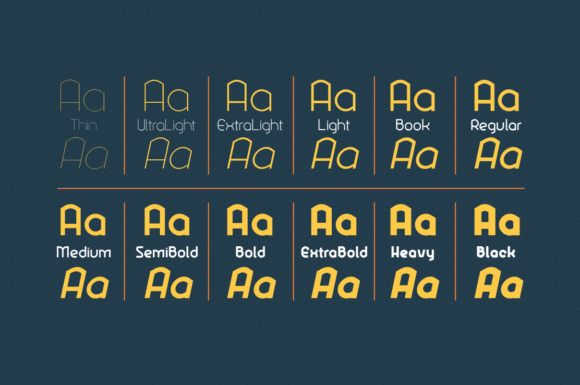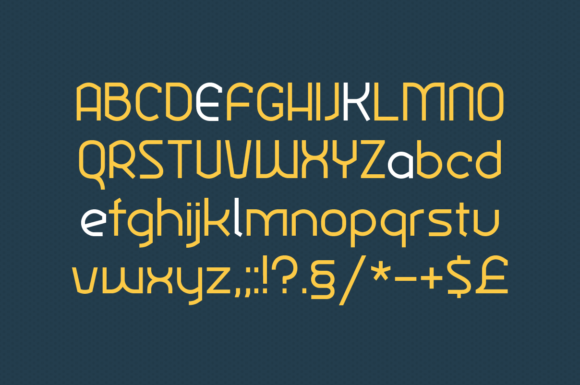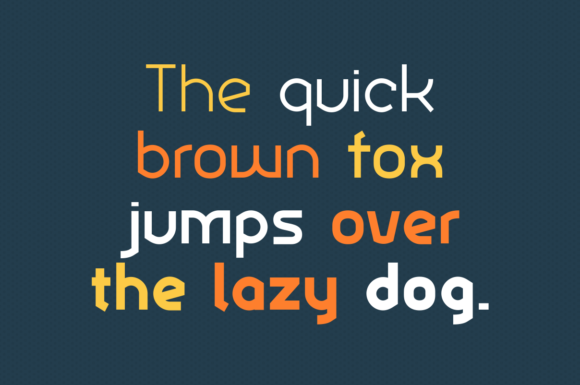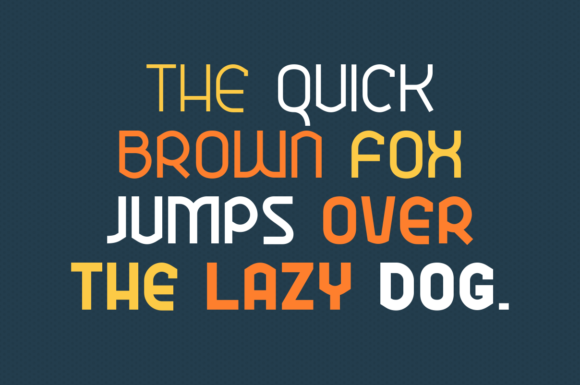
Introducing Ekela Font: The Ultimate Sans Serif for Modern Designs
Are you a designer or crafter on the hunt for the perfect font to elevate your creative projects? Look no further than Ekela Font, a simple yet stunning sans serif font that’s about to become your new favorite. With its neat and clean style, Ekela is an incredibly versatile font that can be used in a wide variety of designs, from digital media to print materials.
The Simplicity and Elegance of Ekela Font
Ekela Font boasts a minimalist design that’s both elegant and easy to read. Its sans serif style gives it a modern and sleek look that’s perfect for designers who want to create clean and sophisticated designs. The font’s simplicity also makes it highly legible, even at smaller sizes, which is ideal for body text or captions.
Why Ekela Font Stands Out
So, what sets Ekela Font apart from other fonts in its category? Here are just a few reasons why Ekela is a cut above the rest:
- Neat and Clean Style: Ekela’s design is characterized by its neat and clean lines, making it perfect for designs that require a professional look and feel.
- Highly Legible: Ekela’s simple design ensures that it’s easy to read, even at smaller sizes.
- Versatile: Ekela can be used in a wide range of designs, from digital media to print materials, and is suitable for both headings and body text.
- Easy to Pair: Ekela’s neutral design makes it easy to pair with other fonts, allowing you to create stunning font combinations.
Ekela Font is an excellent choice for designers and crafters who want to add a touch of modern elegance to their projects. Whether you’re working on a:
- Branding Project: Ekela’s clean design makes it perfect for logos, business cards, and letterheads.
- Digital Product: Ekela’s legibility and simplicity make it ideal for user interfaces, mobile apps, and website designs.
- Print Material: Ekela’s neat style makes it suitable for brochures, flyers, posters, and more.
- Crafting Project: Ekela’s elegant design makes it perfect for crafting projects, such as DIY tutorials, patterns, and inspirational quotes.
How to Use Ekela Font Effectively
To get the most out of Ekela Font, here are some tips on how to use it effectively:
- Use it as a Headline Font: Ekela’s bold and clean design makes it perfect for headlines and titles.
- Pair it with Other Fonts: Ekela’s neutral design makes it easy to pair with other fonts, allowing you to create stunning font combinations.
- Experiment with Font Sizes: Ekela’s legibility ensures that it remains clear even at smaller sizes, making it perfect for body text or captions.
In conclusion, Ekela Font is a simple yet stunning sans serif font that’s perfect for designers and crafters who want to add a touch of modern elegance to their projects. With its neat and clean style, high legibility, and versatility, Ekela has the potential to become your go-to font for a wide range of designs. So why not give Ekela Font a try today and see how it can elevate your creative projects?